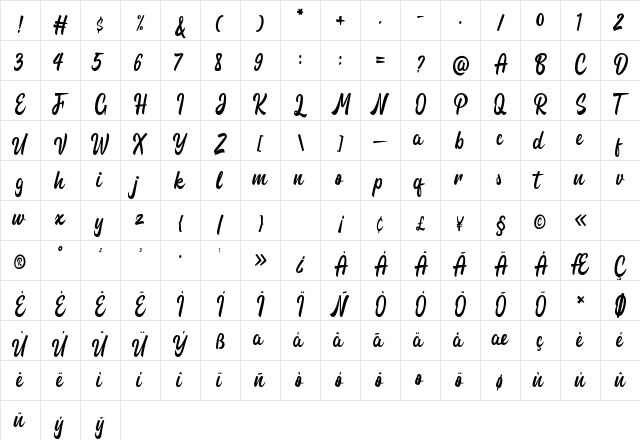
Paradise Script Regular Font Preview
Paradise Script Regular
Design Context for Paradise Script Typeface
Paradise Script flows with the natural rhythm of handwritten lettering, making it ideal for designs that call for warmth and personal expression.
Font Pairing: Combine Paradise Script with a simple geometric sans for maximum contrast — the tension between flowing curves and clean structure is a classic typographic pairing.
Pro Tip: Use Paradise Script for short runs of text — names, titles, or taglines. Extended body copy in script faces tires the eye quickly.